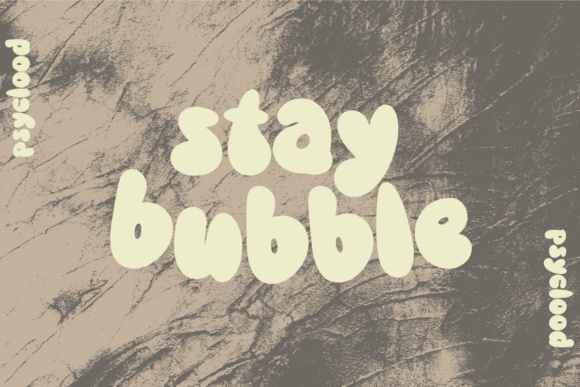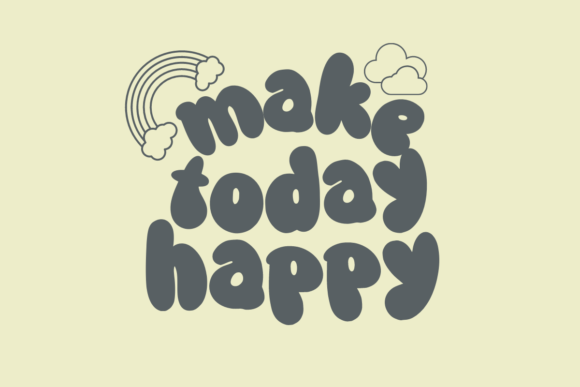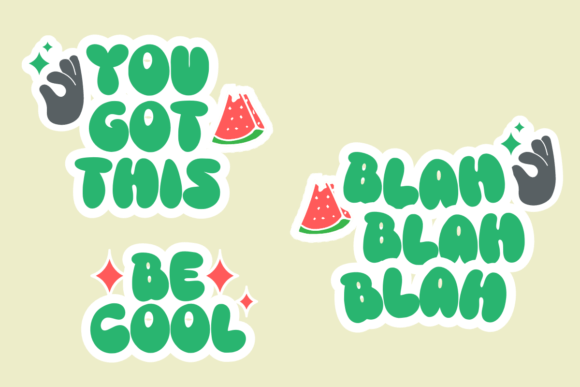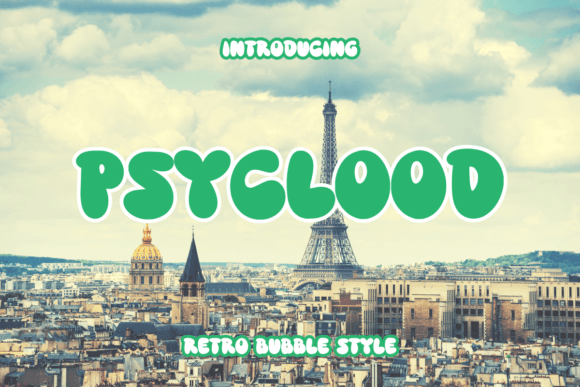
Introduction to Psyclood Font
Psyclood is a fun and retro bubble font.
It is perfect for designs that need a playful, cheery accent Psyclood is suitable for book covers, posters, packaging, merchandise, logotypes, and many more.